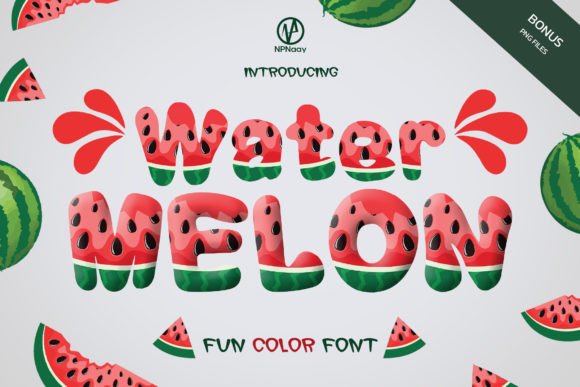
Introducing Water Melon Font - the best font for vertical type, designed by the creative genius NPNaay. If you're looking for a colorful font that's perfect for any occasion, look no further. Water Melon Font is the ideal choice for anyone who wants to add a touch of authenticity to their work.
Inspired by the delicious and refreshing fruit, Water Melon Font is the perfect way to bring your designs to life. With its bold and vibrant design, this font is guaranteed to make your creative ideas stand out. Whether you're designing invitations, stationary art, social media posts, or greeting cards, Water Melon Font is the perfect addition to any project.
Not only is Water Melon Font visually appealing, but it also has an authentic feel that will captivate your audience. This font is perfect for anyone who wants to add a touch of personality to their work. So why settle for a boring font when you can have Water Melon Font?
Water Melon Font is the perfect way to elevate your work to the next level. It's versatile and can be used for a variety of projects. This font is the perfect way to showcase your creativity and express your individuality. So what are you waiting for? Add Water Melon Font to your collection today and see the difference it makes!